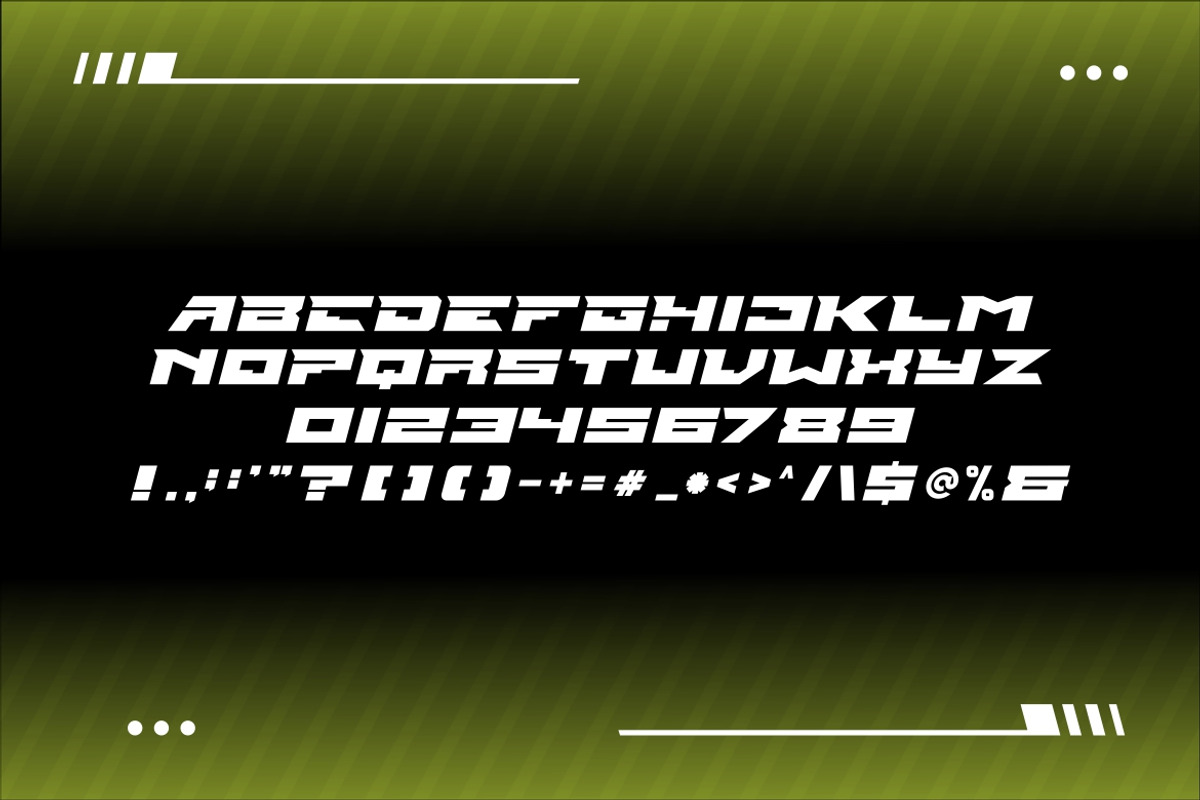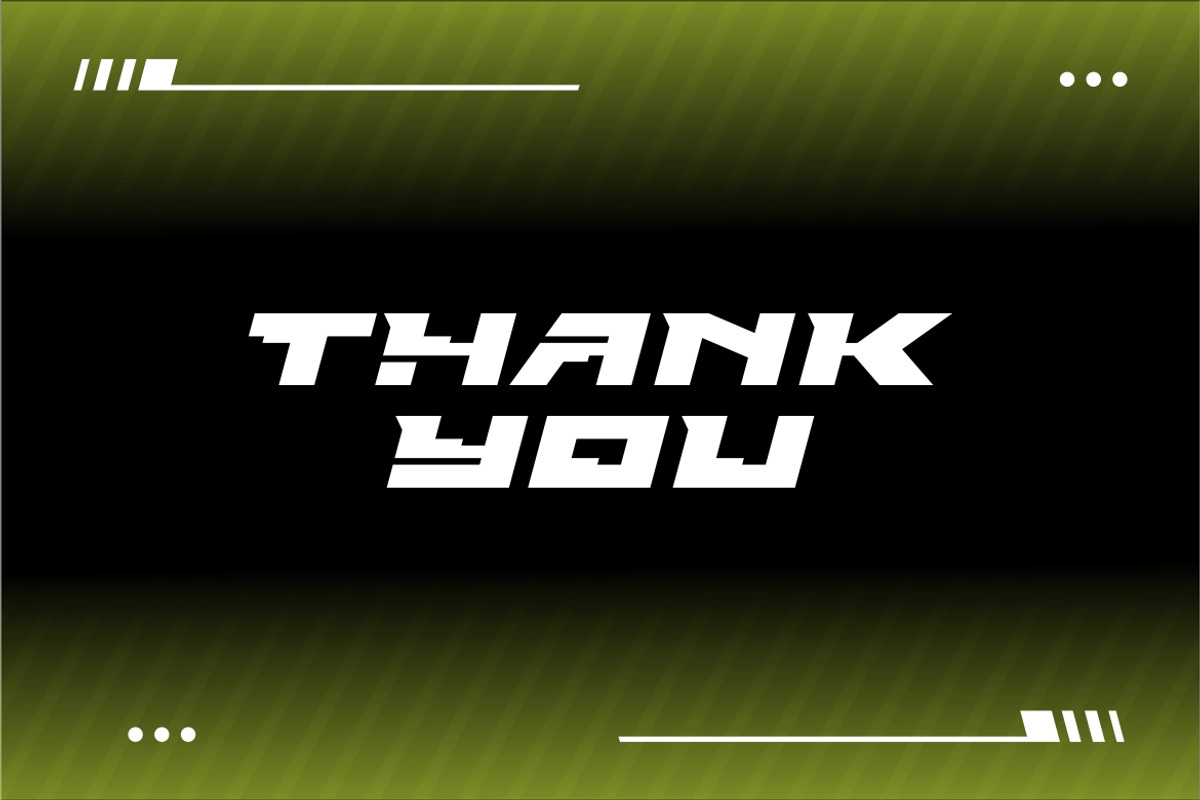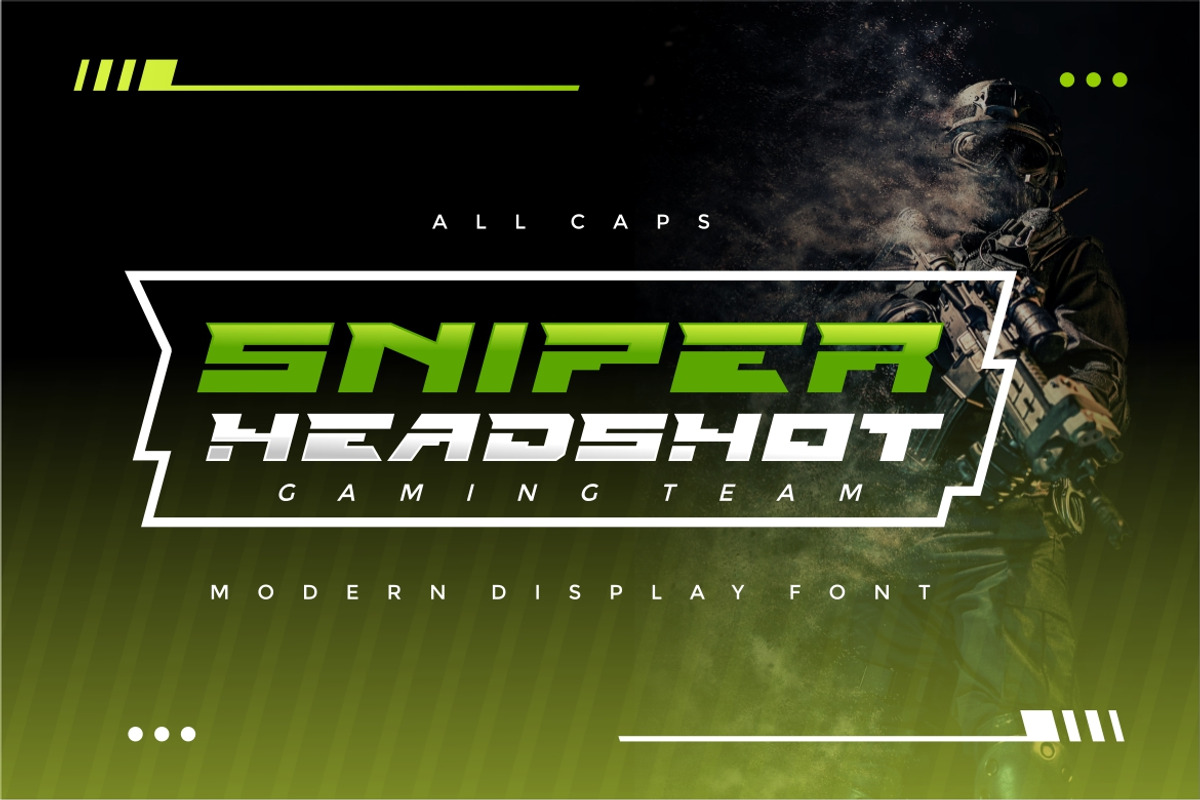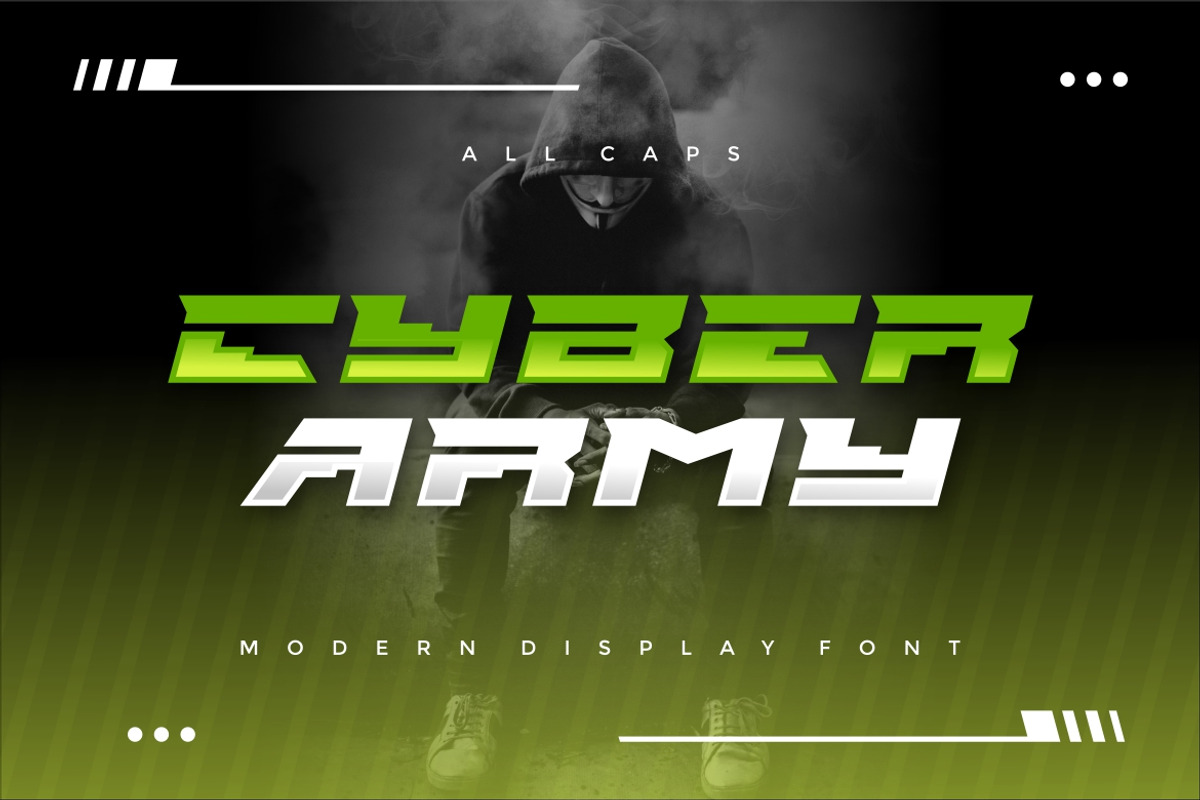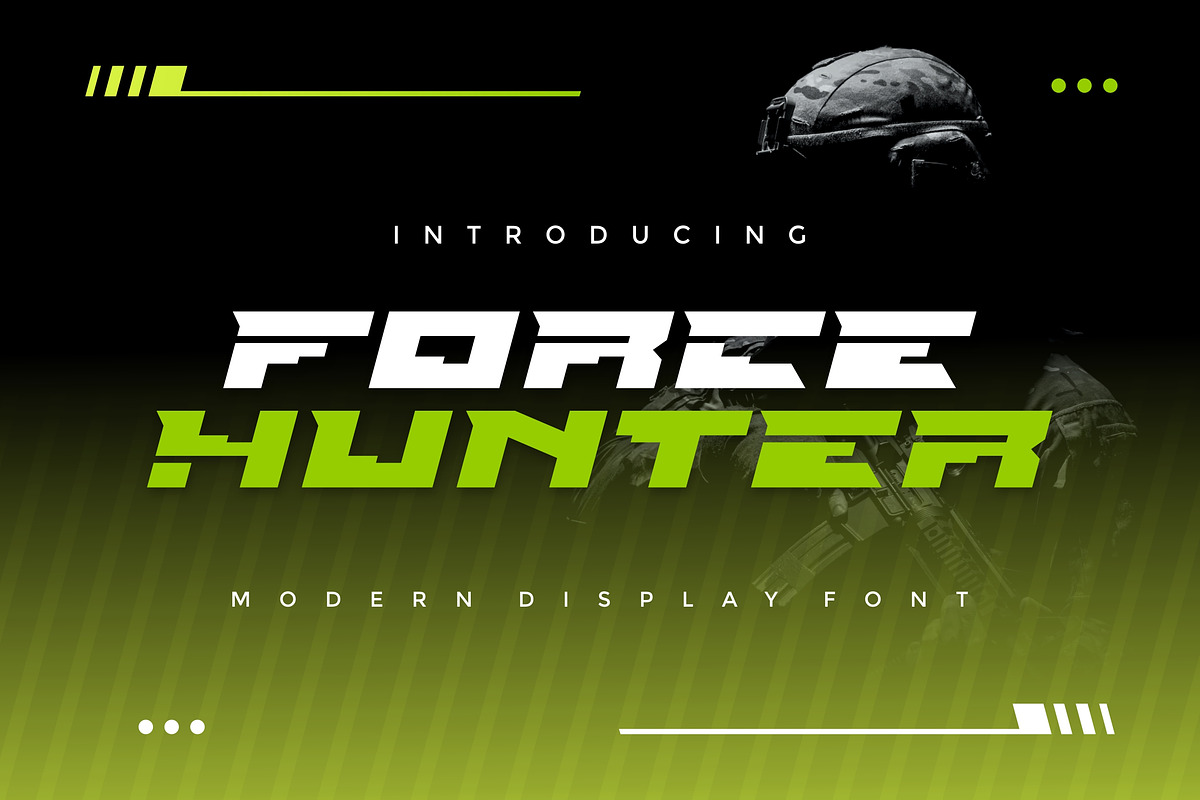
Force Hunter Modern Font
Introducing our new product Force Hunter - Modern Font
Force Hunter is a bold, modern display font with playful flair, ideal for attention-grabbing headlines, logos, and diverse design projects. Versatile and readable in both digital and print, Force Hunter adds a dynamic touch to your message.